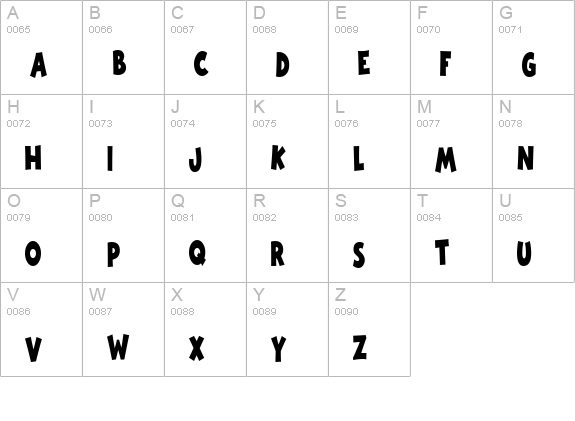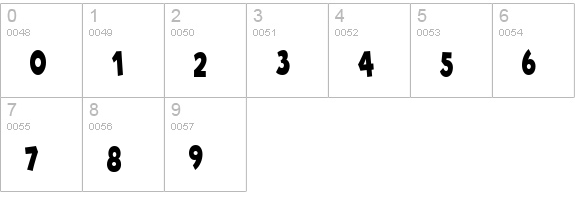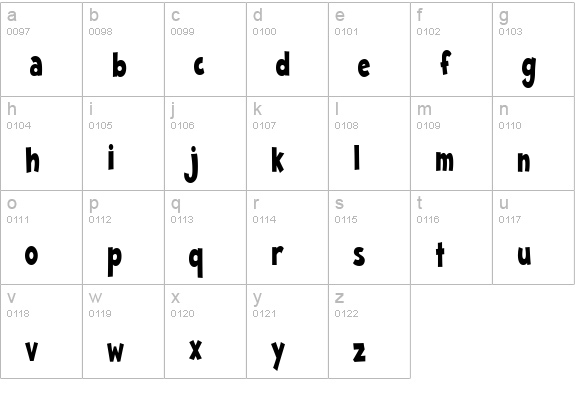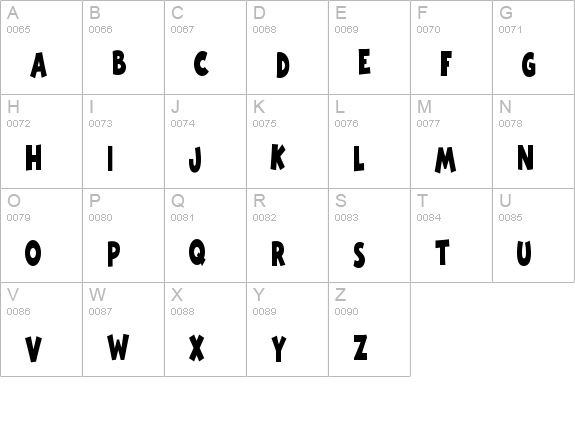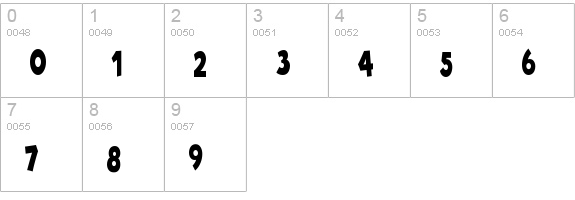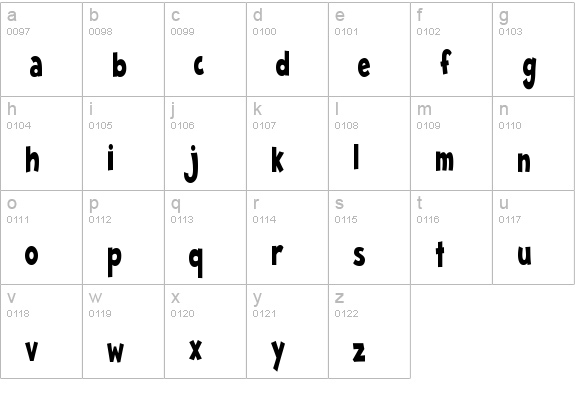
CK Retro Block Font Details
Introducing CK Retro Block font, a modern and stylish typeface that combines retro charm with a contemporary twist. This versatile font is perfect for a wide range of design projects, from branding to advertising to social media posts. CK Retro Block features bold block lettering that exudes a sense of strength and confidence, making it ideal for making a statement. What's even better is that CK Retro Block font is completely free to download at FontsMarket.com. Yes, you read that right - this high-quality font can be yours at no cost, allowing you to unleash your creativity without breaking the bank. So why wait? Download CK Retro Block font today and add a touch of retro flair to your designs!